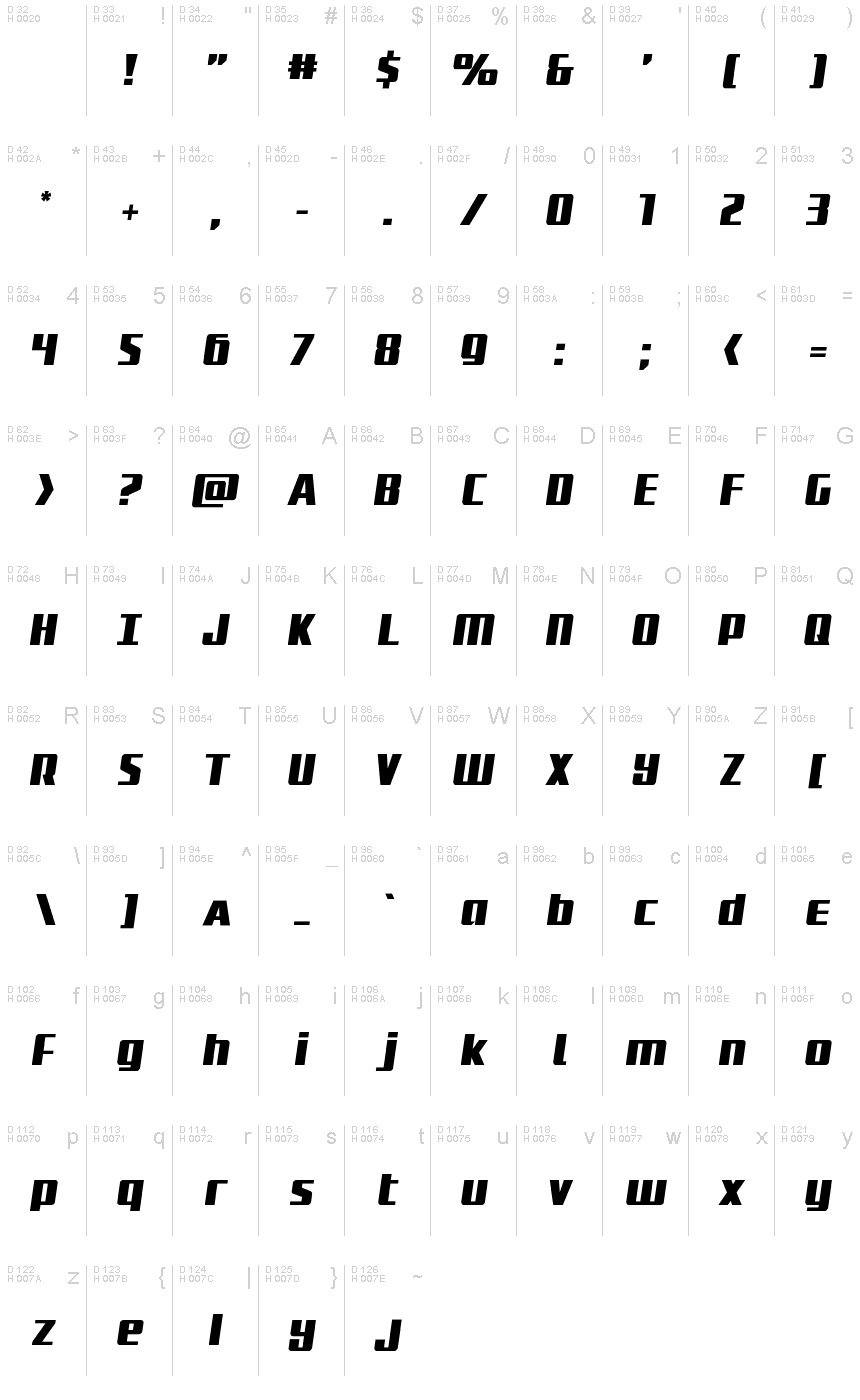
Subadai Baan Semi-Italic
Subadai Baan Semi-Italic is a display font designed by the renowned font designer, Daniel Zadorozny. This techno-inspired typeface is perfect for a range of creative projects that require a bold and impactful aesthetic. The semi-italic style adds an extra dimension of character, making it suitable for anything from futuristic branding to edgy editorial design. Whether you're creating eye-catching posters, dynamic logos or sleek website designs, Subadai Baan Semi-Italic will help your text stand out from the crowd. Its bold weight ensures legibility at all sizes while its distinctive style guarantees an unforgettable impression.